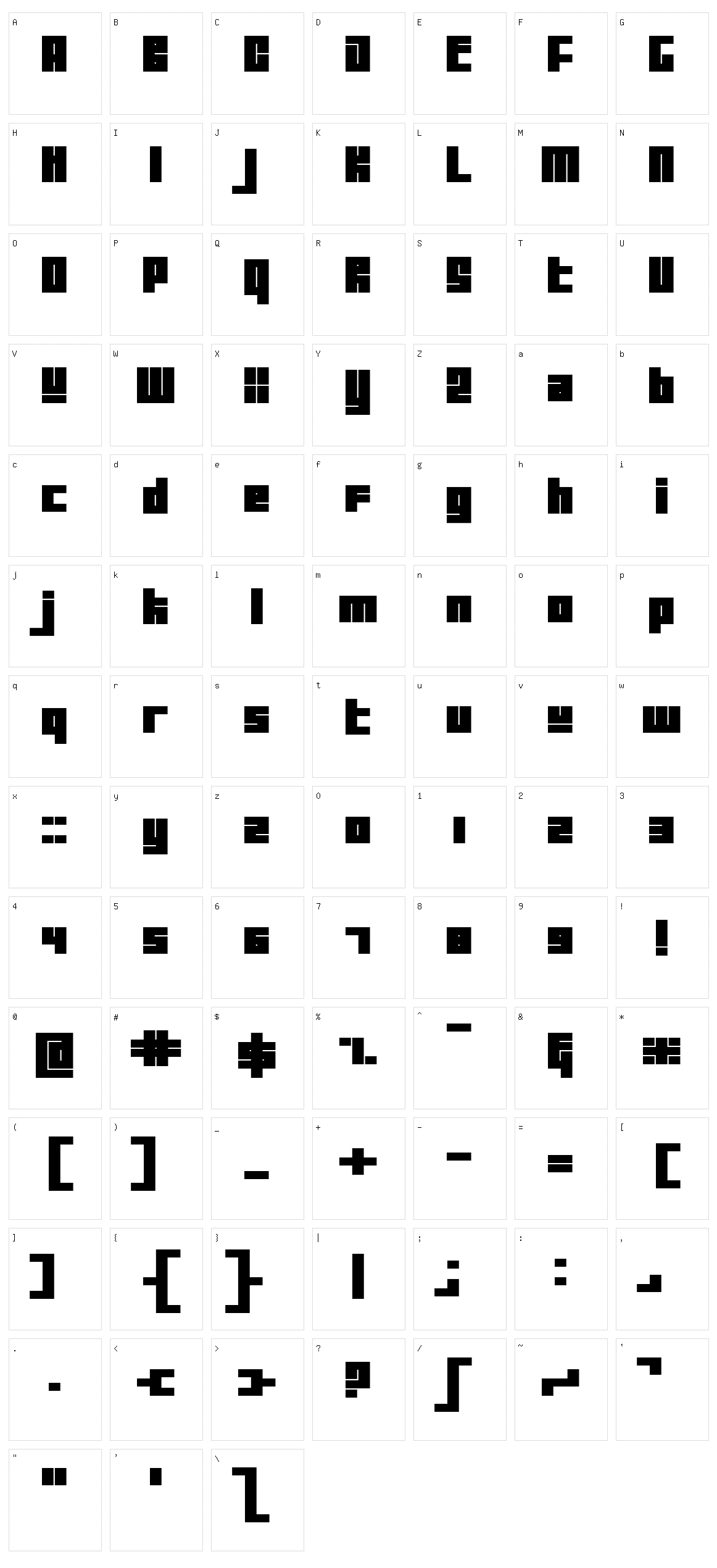
The free font Tutor is carefully designed by Zetafonts, showcasing a thoughtful balance of creativity and usability and falls under the Square font style. When you download the ZIP file, it contains only 40.45 KB of font files, making it lightweight and quick to download. Please review the license details below to understand permitted usage and distribution rights. If license information is not available, we recommend using this font for personal projects only or contacting the author directly for commercial usage permissions.